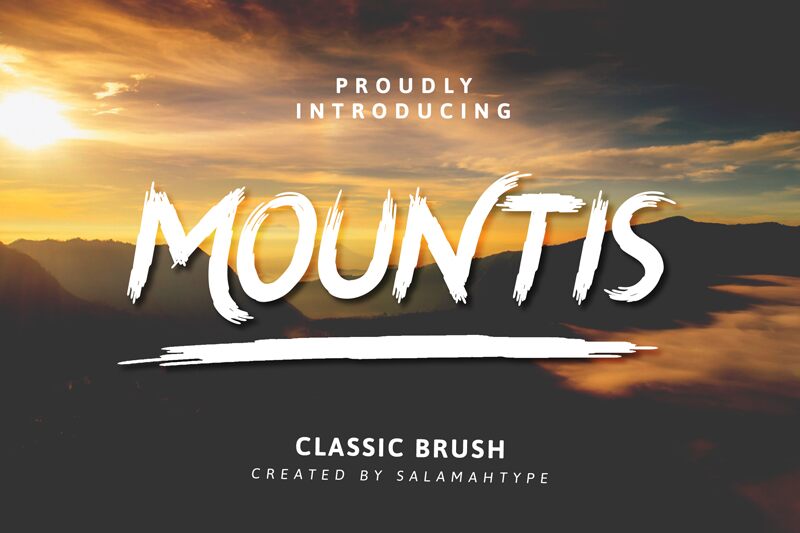
MOUNTIS
"Discover the captivating beauty of our latest creation, the “MOUNTIS” brush font by Salamahtype.com. With its elegant and timeless brush style, this semi-bold font boasts a unique charm that is perfect for a wide range of projects.
Whether you need to add a touch of sophistication to your branding project, create memorable logos, design eye-catching websites, craft inspiring quotes, produce stunning posters or publish engaging content in magazines and social media platforms – MOUNTIS is your ultimate go-to font.
Embrace its versatility and elevate your designs to new heights with this stylish and classic brush typeface."